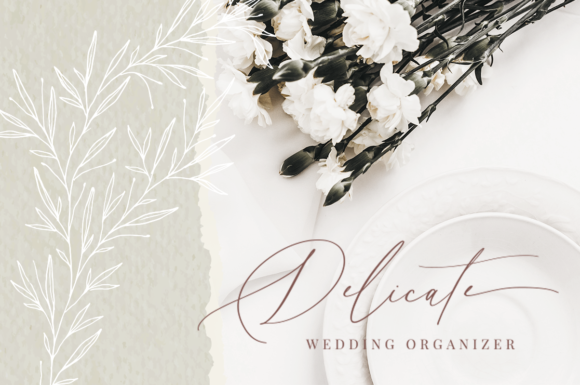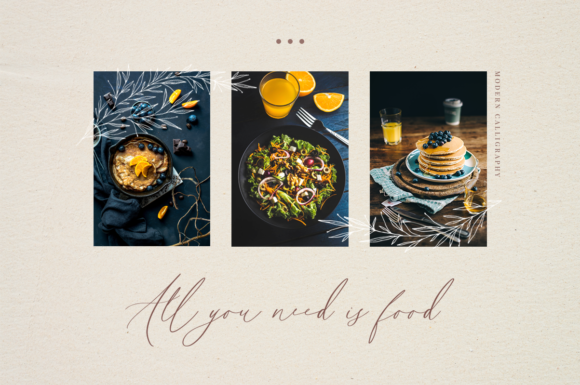
Senja Mentari Font
db-ku.com - Script & Handwritten -- Senja Mentari is inspired by classic typography and brings its own unique style to any design project. This elegant font will elevate a wide range of design projects to the highest level, be it branding, headings, wedding designs, invitations, signatures, logos, labels, and much more!